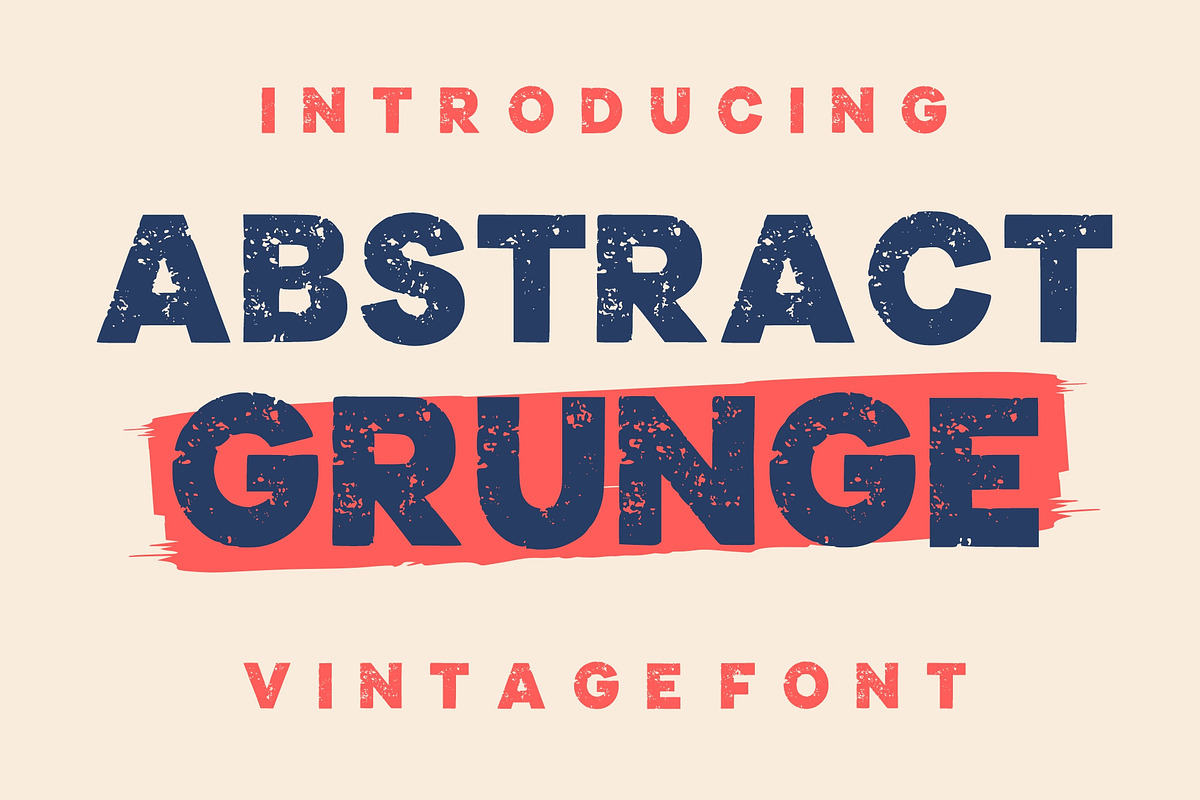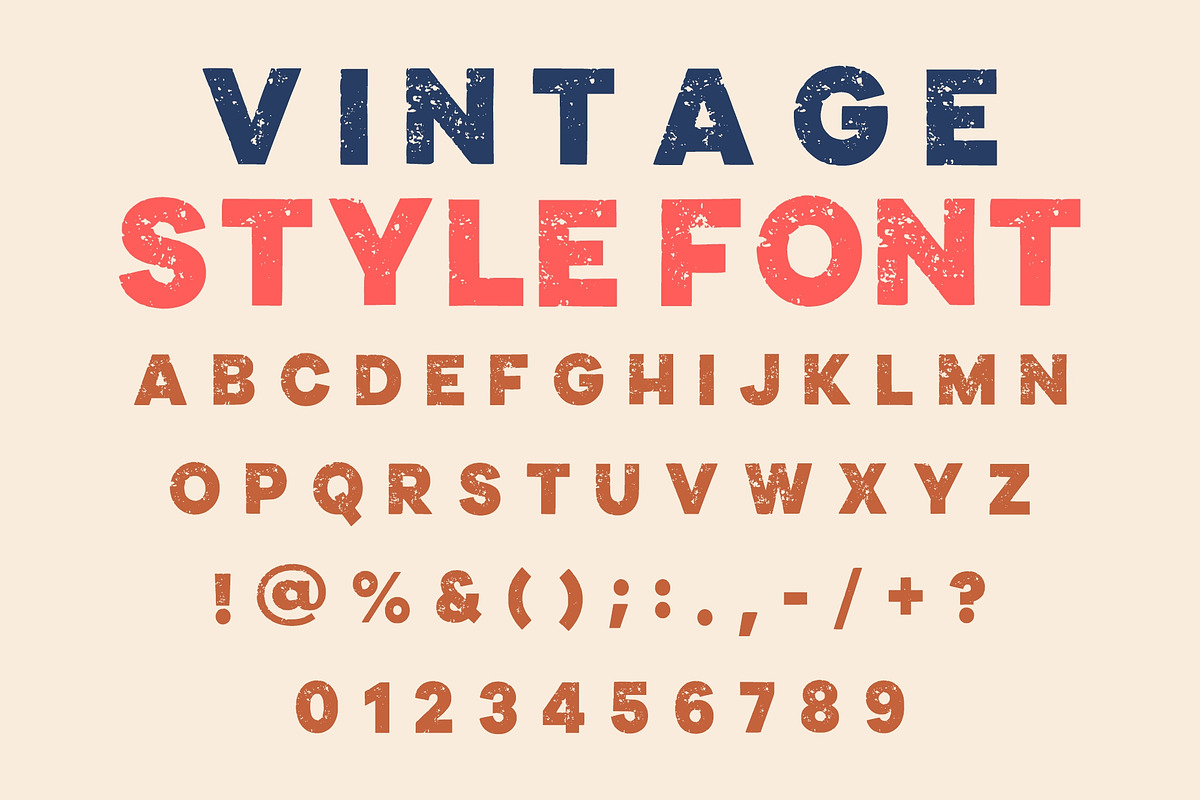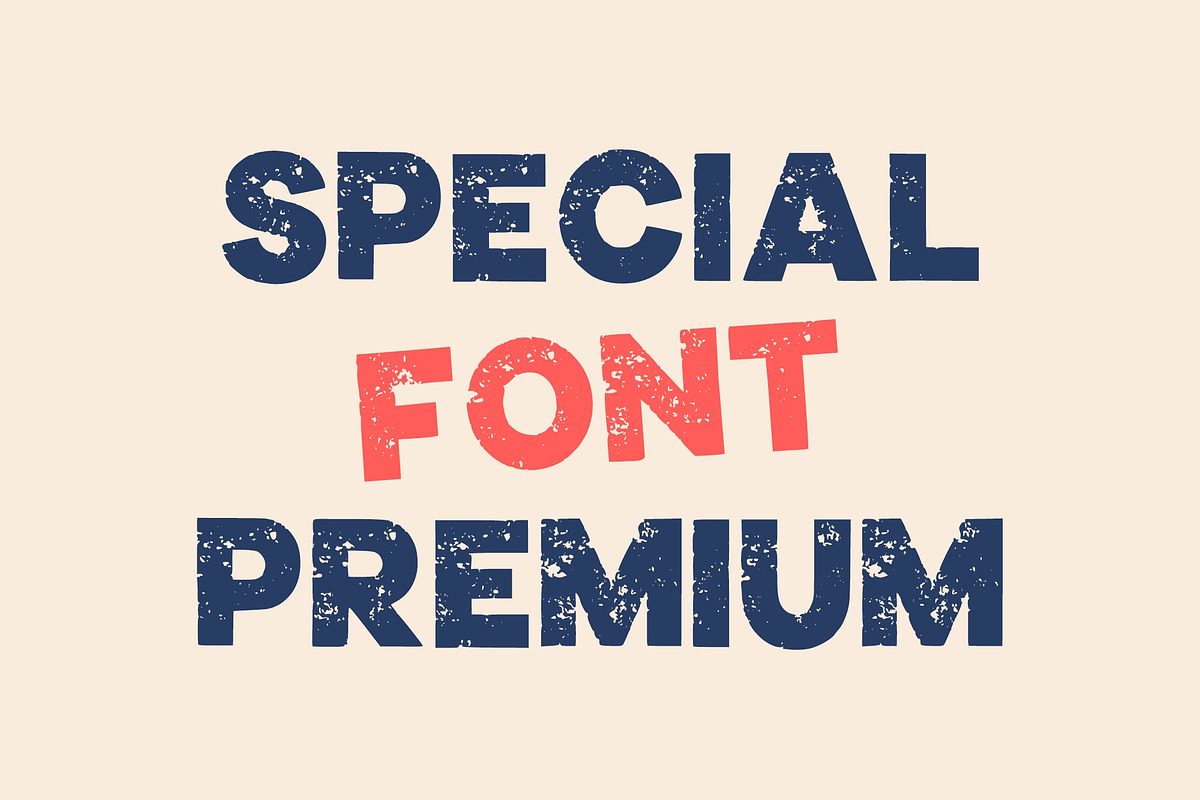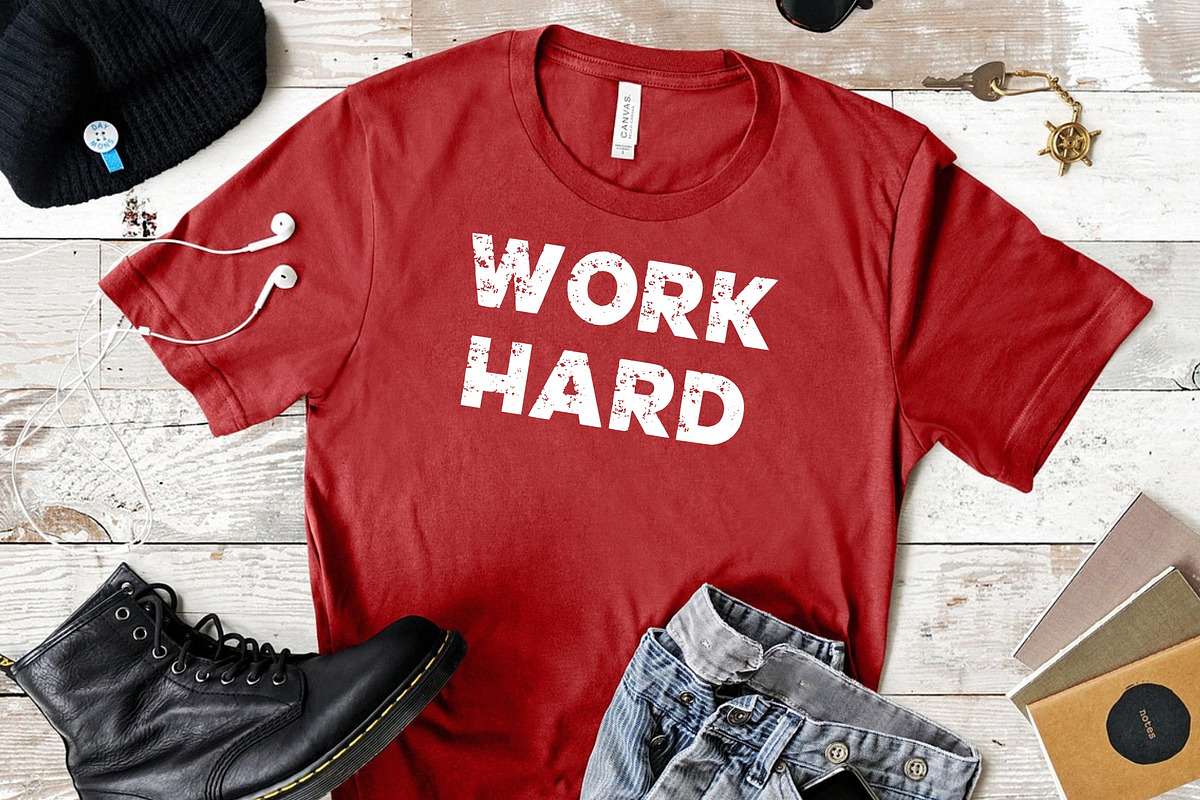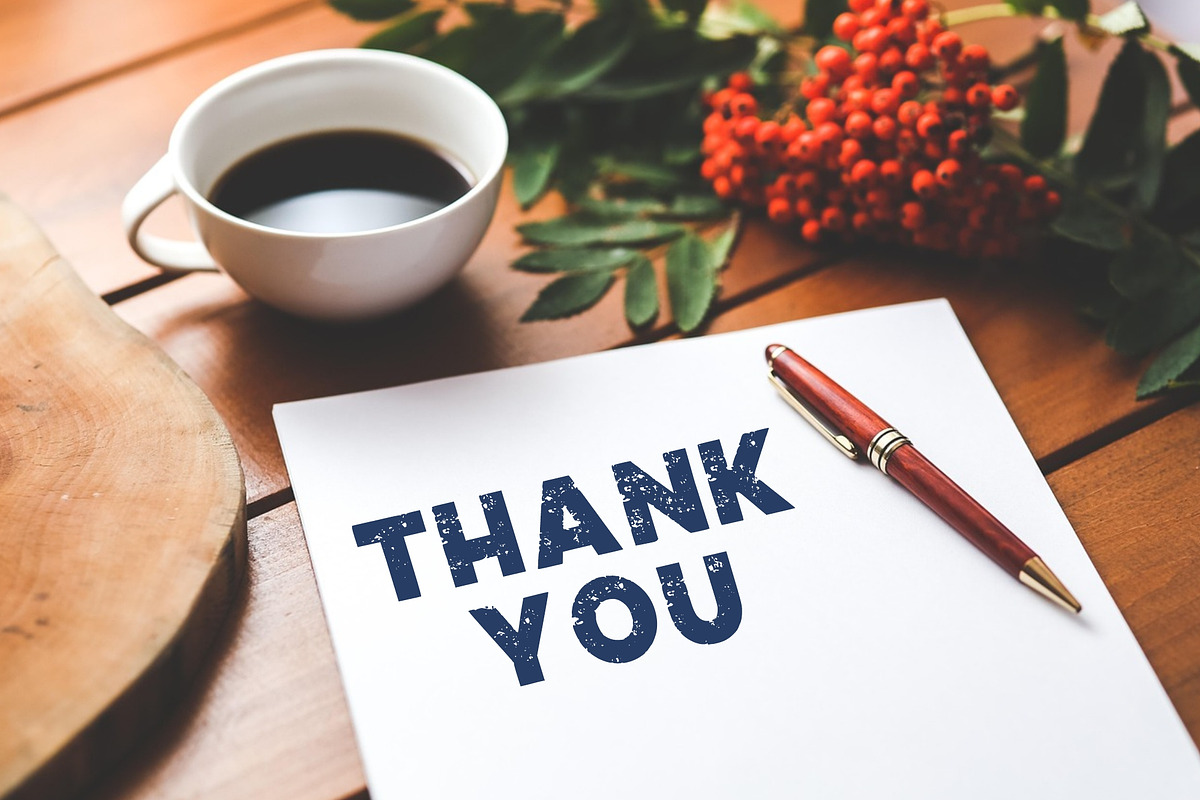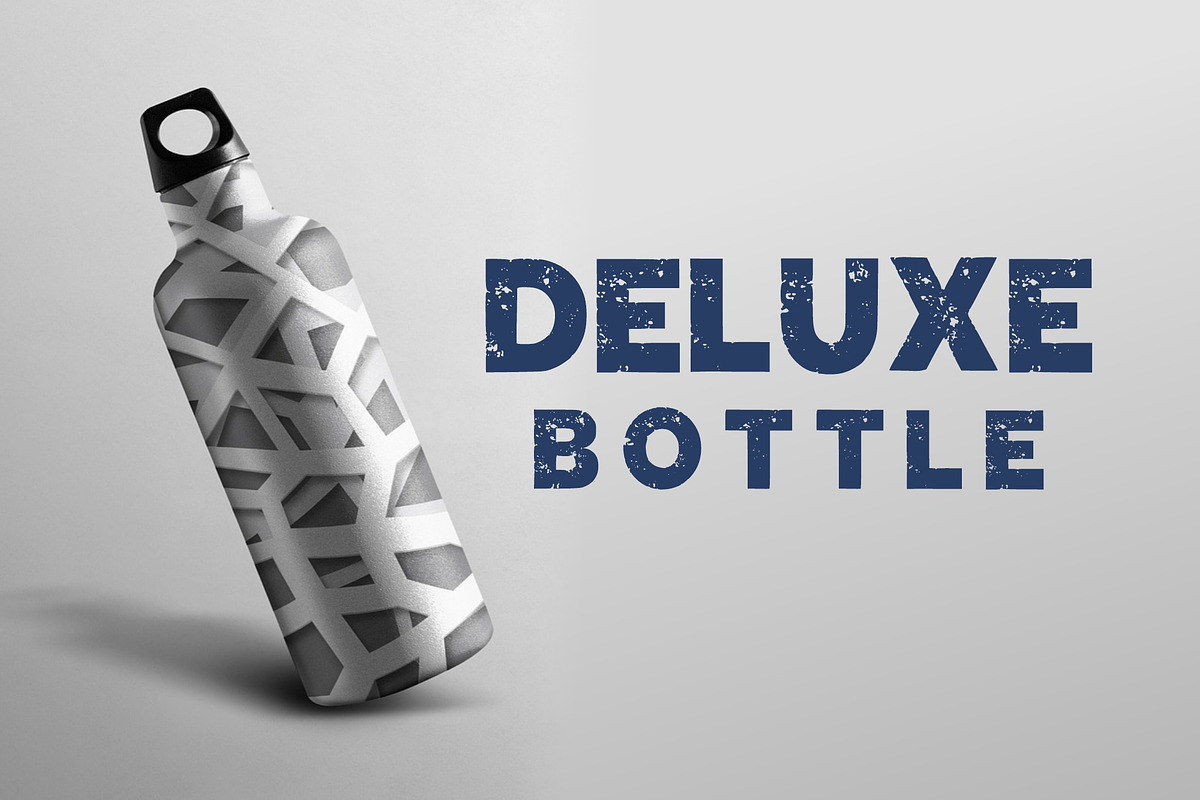
Abstract Grunge
Abstract Grunge is a bold and distressed typeface that captures the raw energy of urban rebellion and underground design.
This font embodies authentic grit, featuring rough textures, imperfect edges, and a fearless attitude that instantly demands attention.
Perfect for posters, album covers, streetwear branding, movie titles, and edgy graphic design — Abstract Grunge brings the chaos and power of grunge culture into every letter. It’s strong, loud, and unapologetically imperfect, giving your designs that genuine, handcrafted feel.